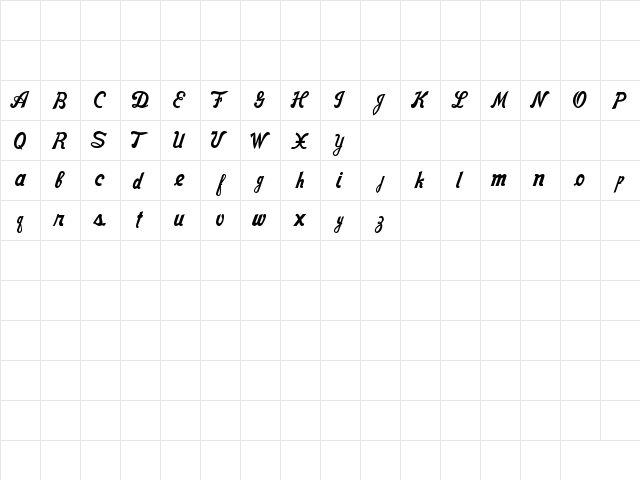
Nike Script Regular
Design Context for Nike Script Typeface
Nike Script brings a calligraphic fluidity to the page — its connecting strokes and expressive curves give it an unmistakably human quality.
Font Pairing: Combine Nike Script with a simple geometric sans for maximum contrast — the tension between flowing curves and clean structure is a classic typographic pairing.
Pro Tip: Use Nike Script for short runs of text — names, titles, or taglines. Extended body copy in script faces tires the eye quickly.